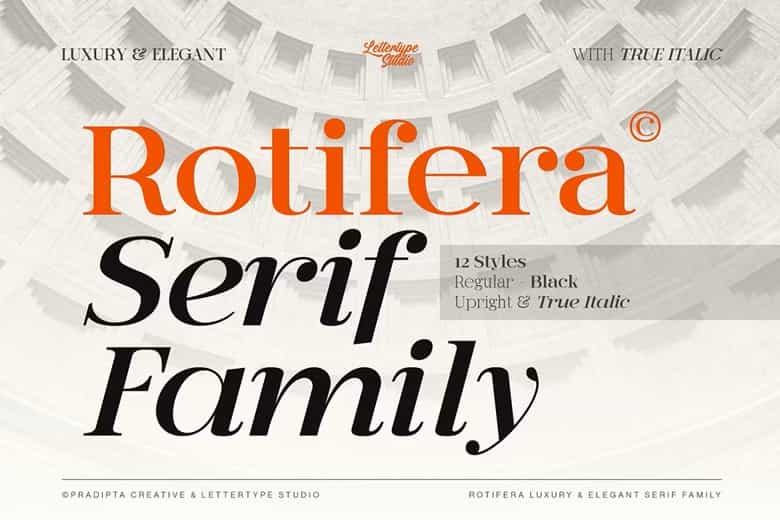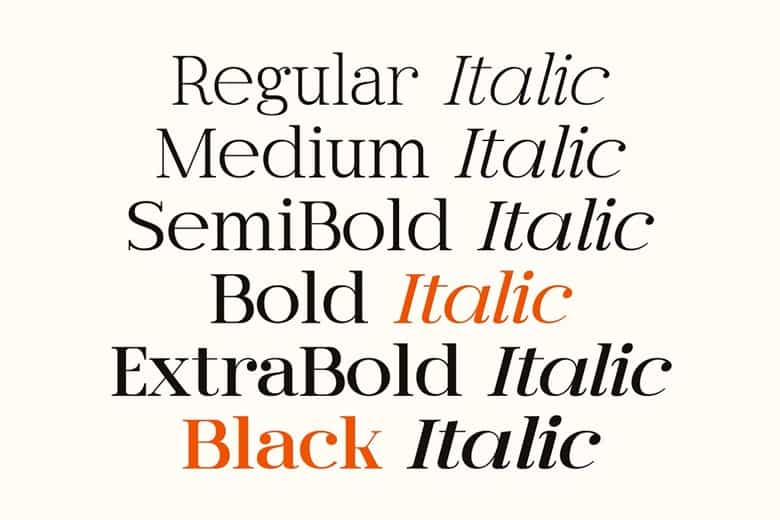
Rotifera is a stunning and sophisticated serif typeface that belongs to the luxury font family and it has high contrast inspired by the fonts of the 18th century. It is ideal for brand identity, magazine design, web type and more. These fonts give and continue to create elegance with simple, geometric and aesthetic features to make your projects spectacular. That is why they are perfect for designers who desire a wider variation and sophistication of their fonts.